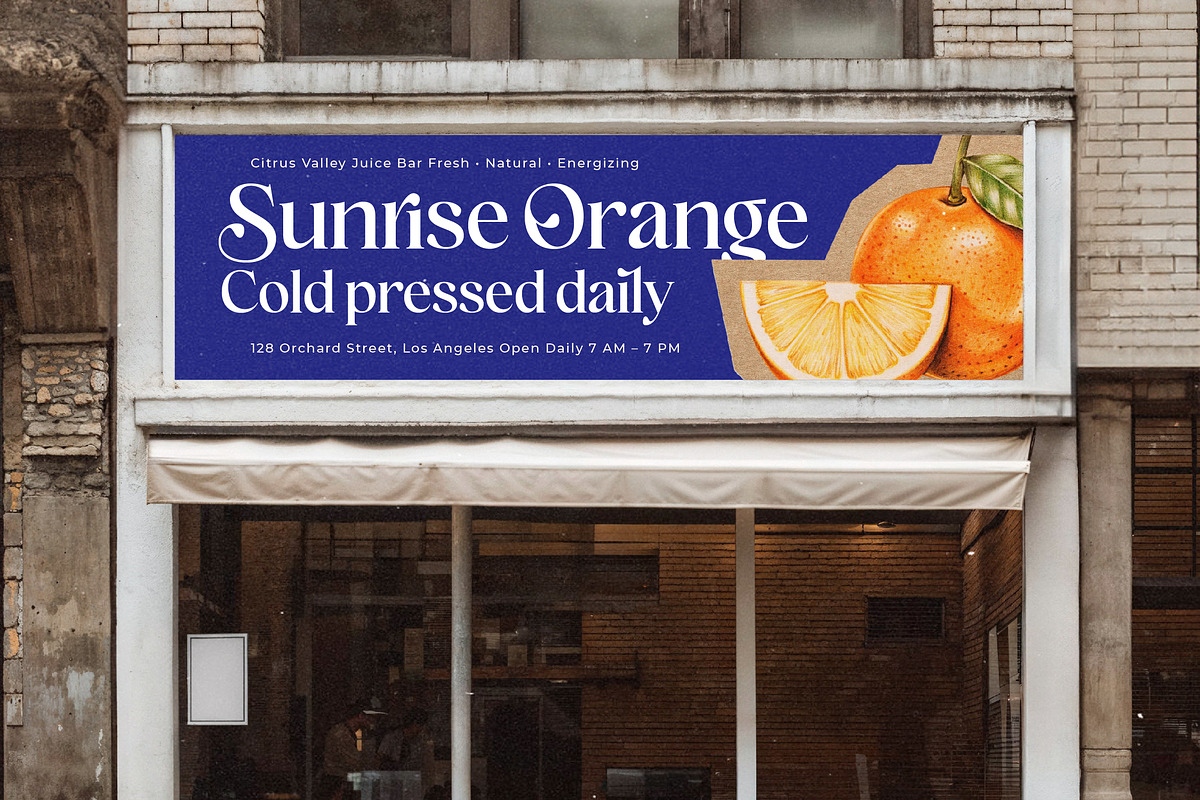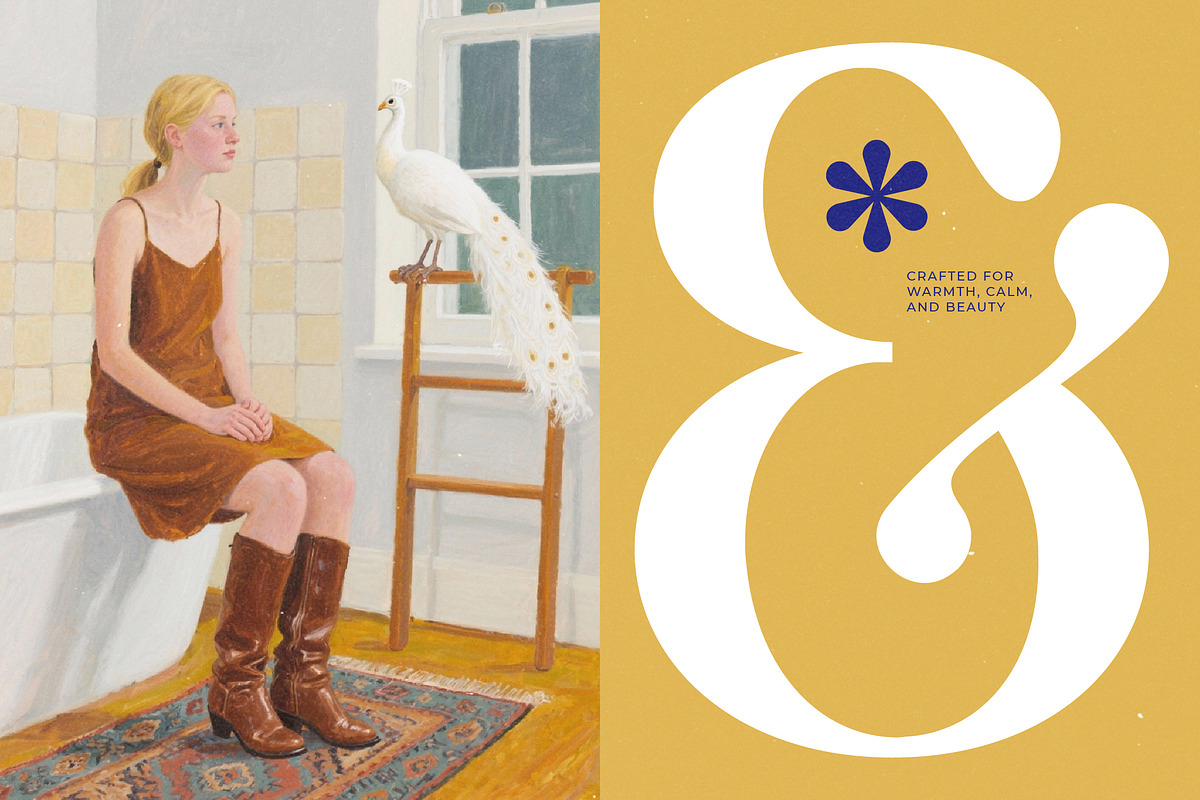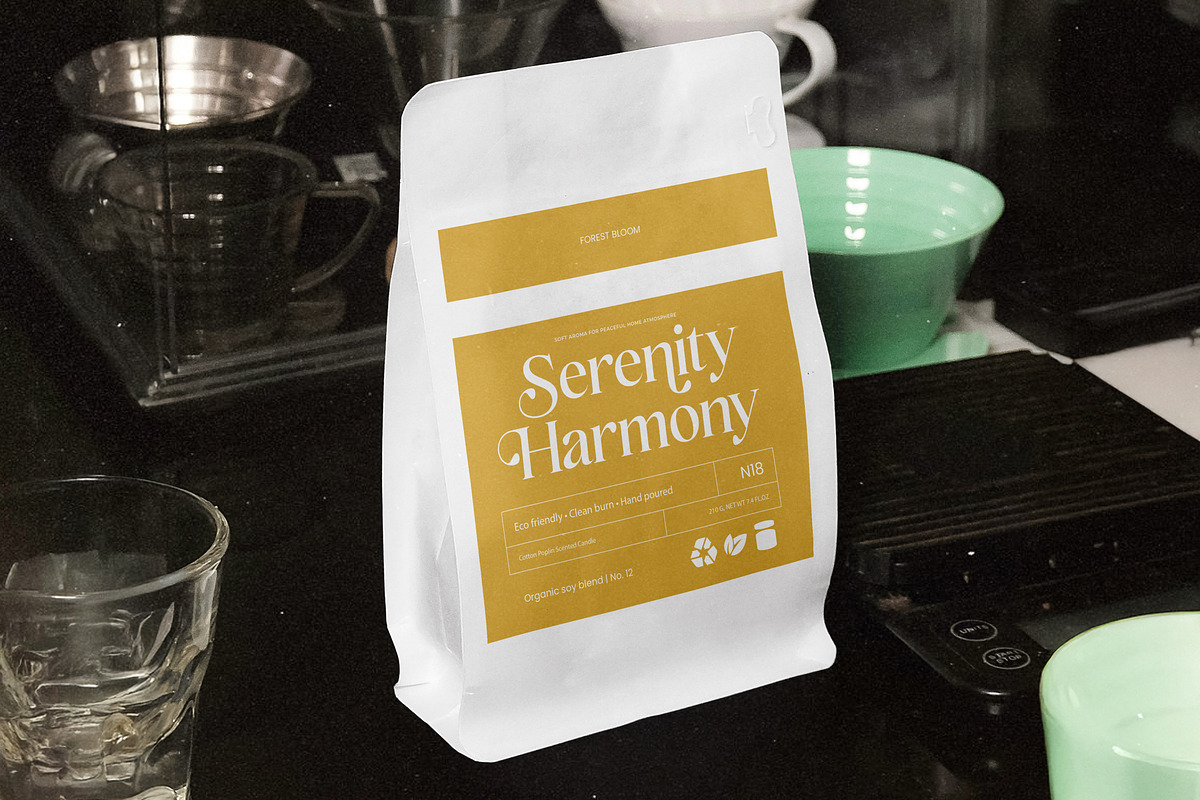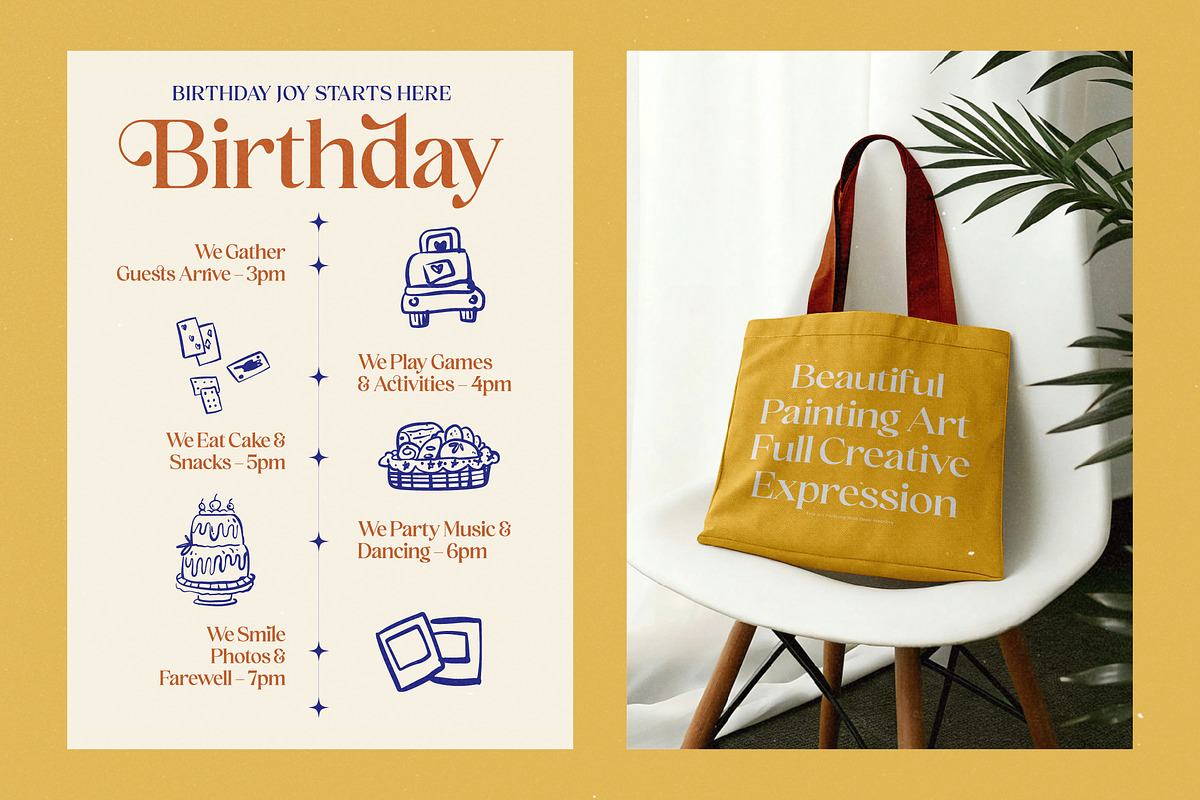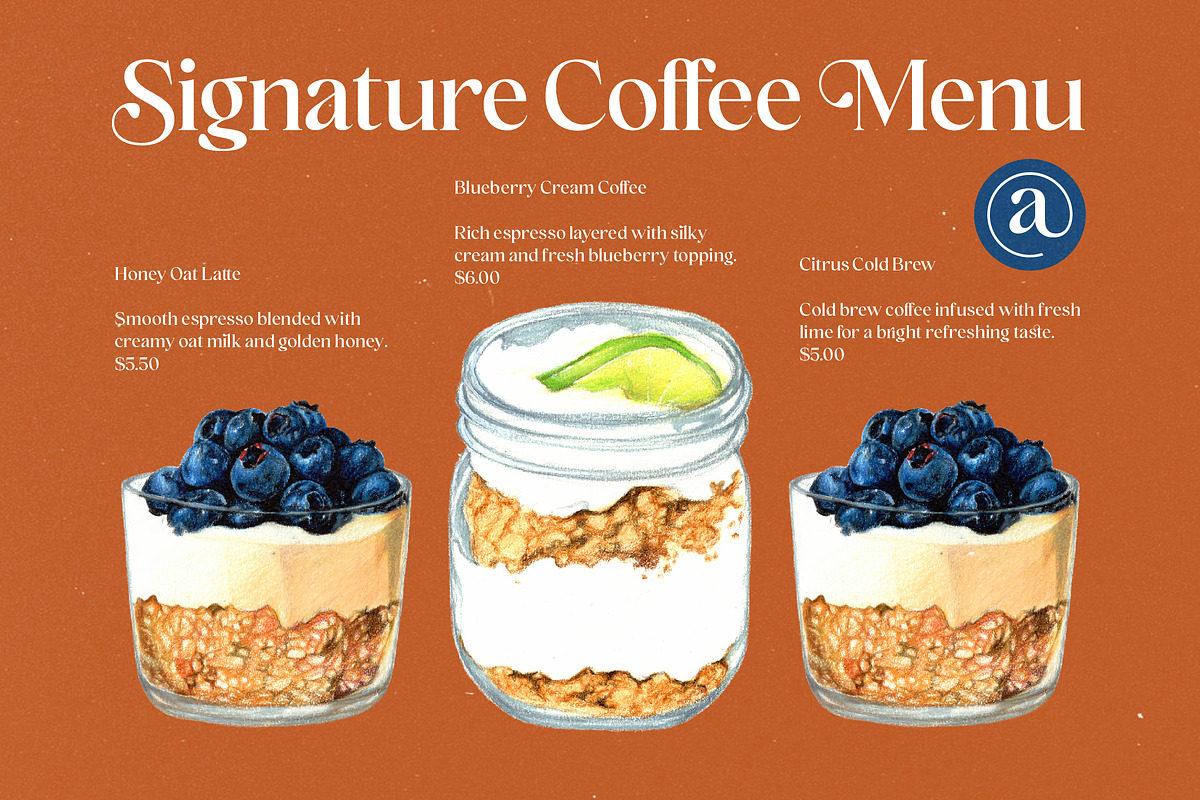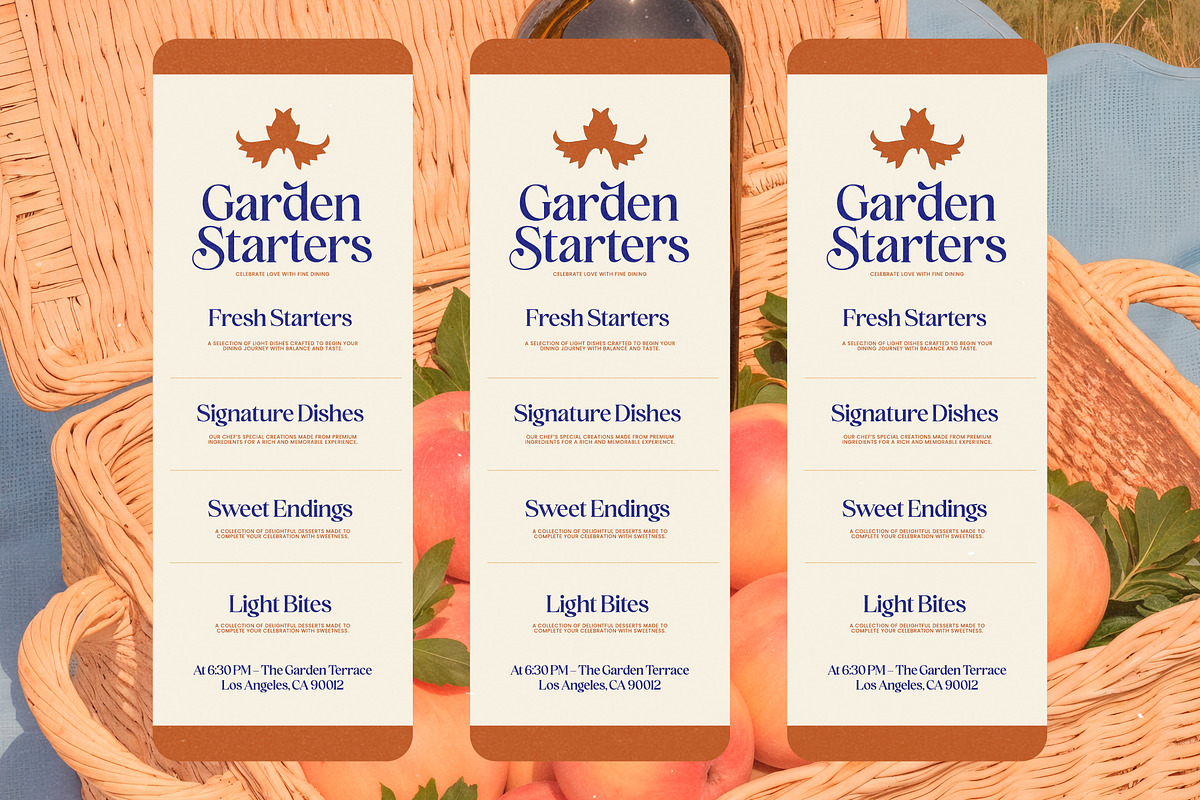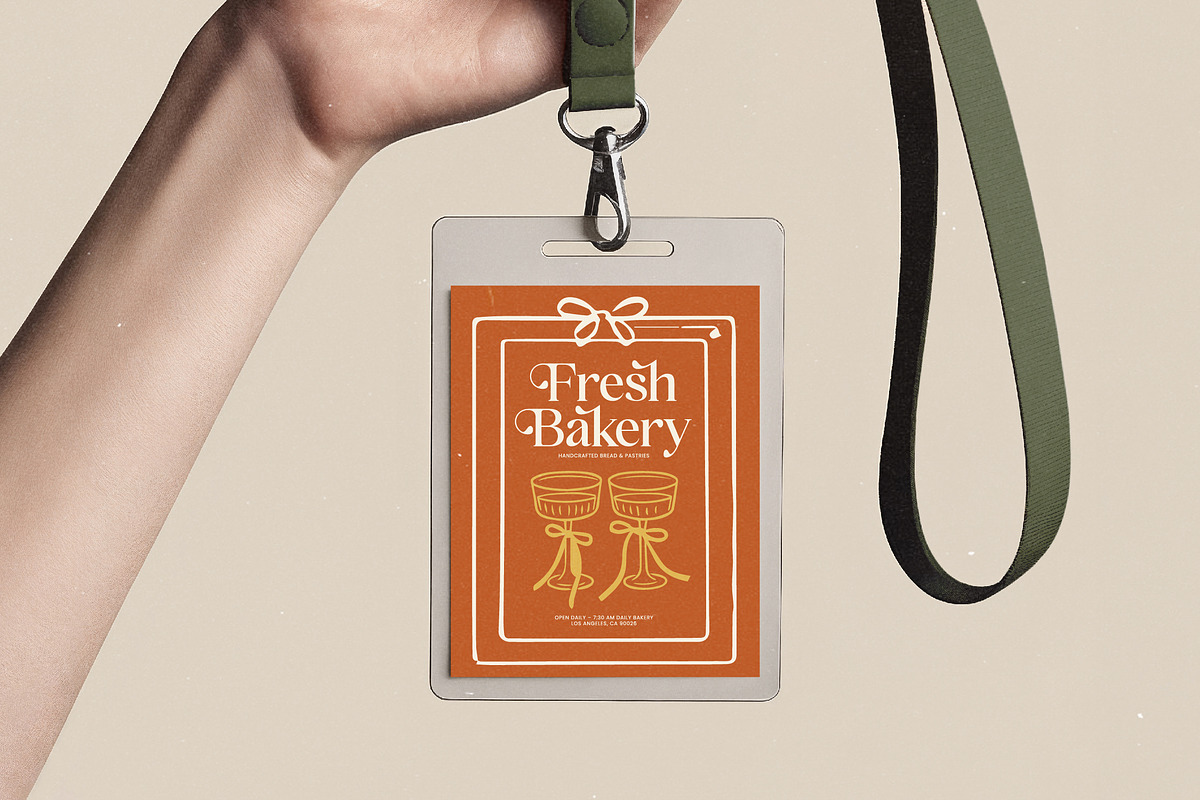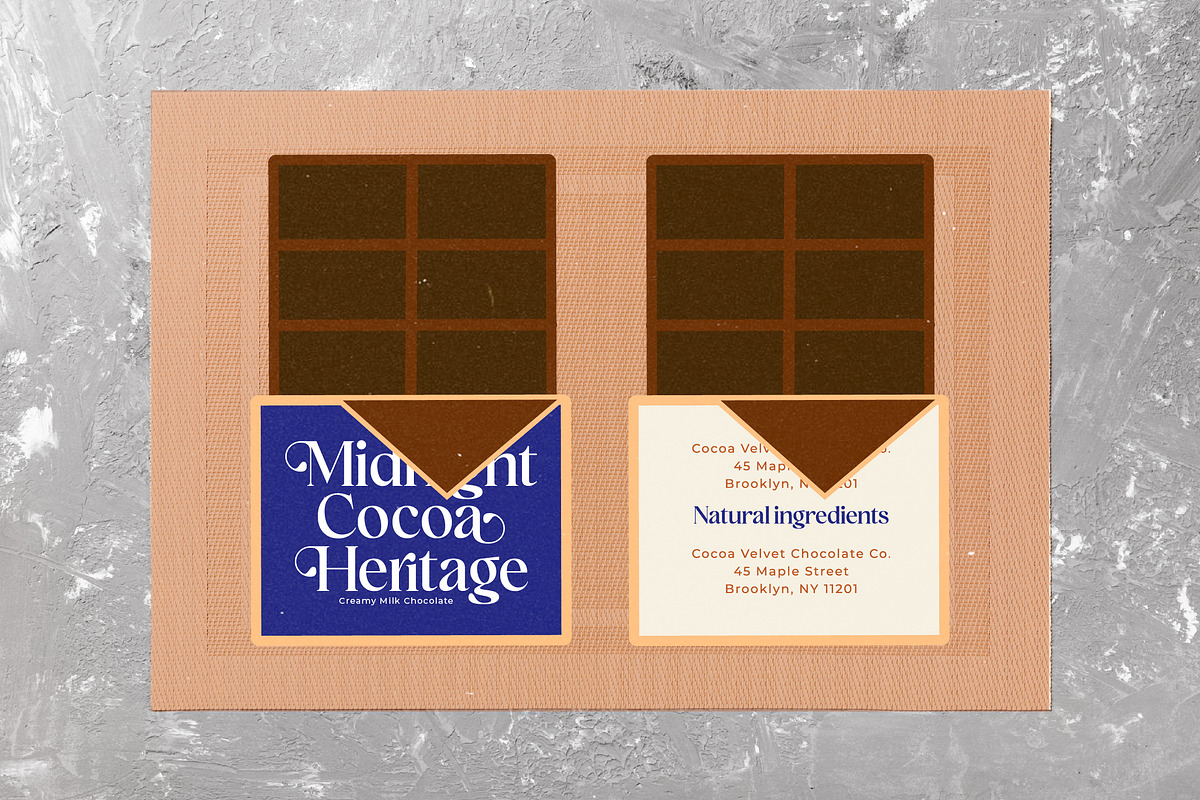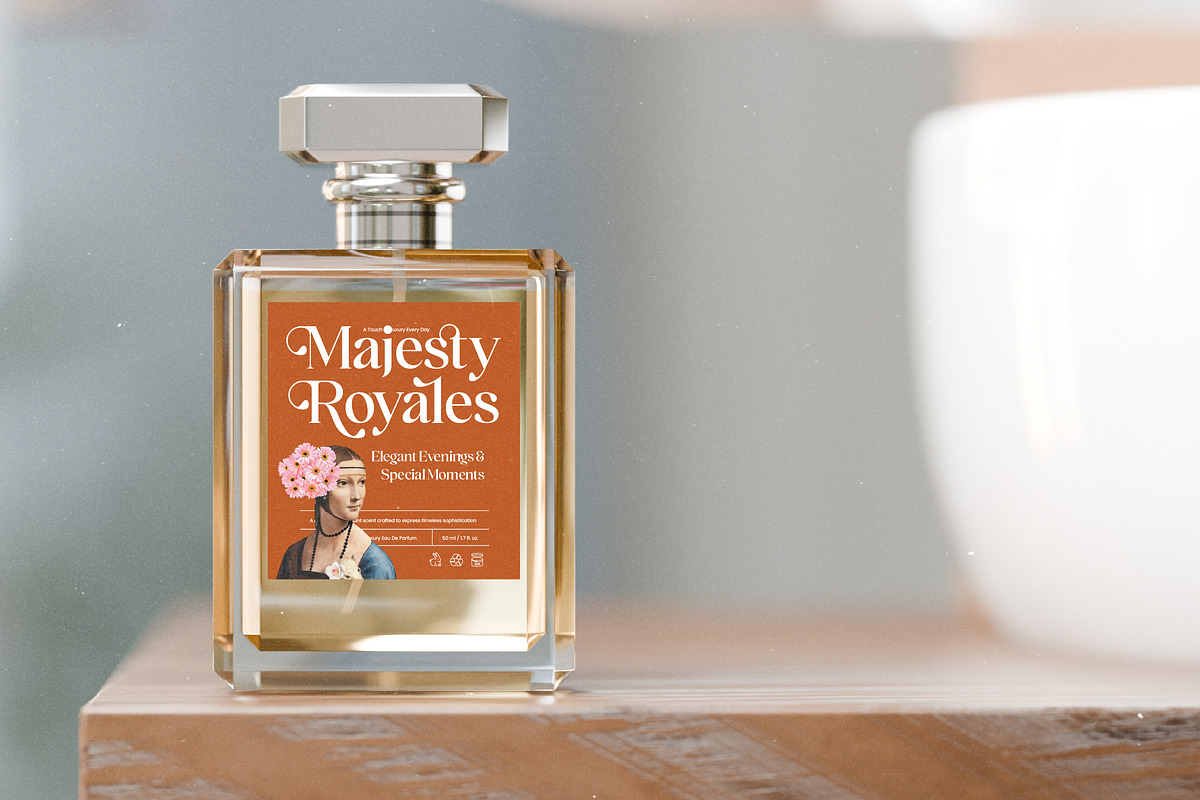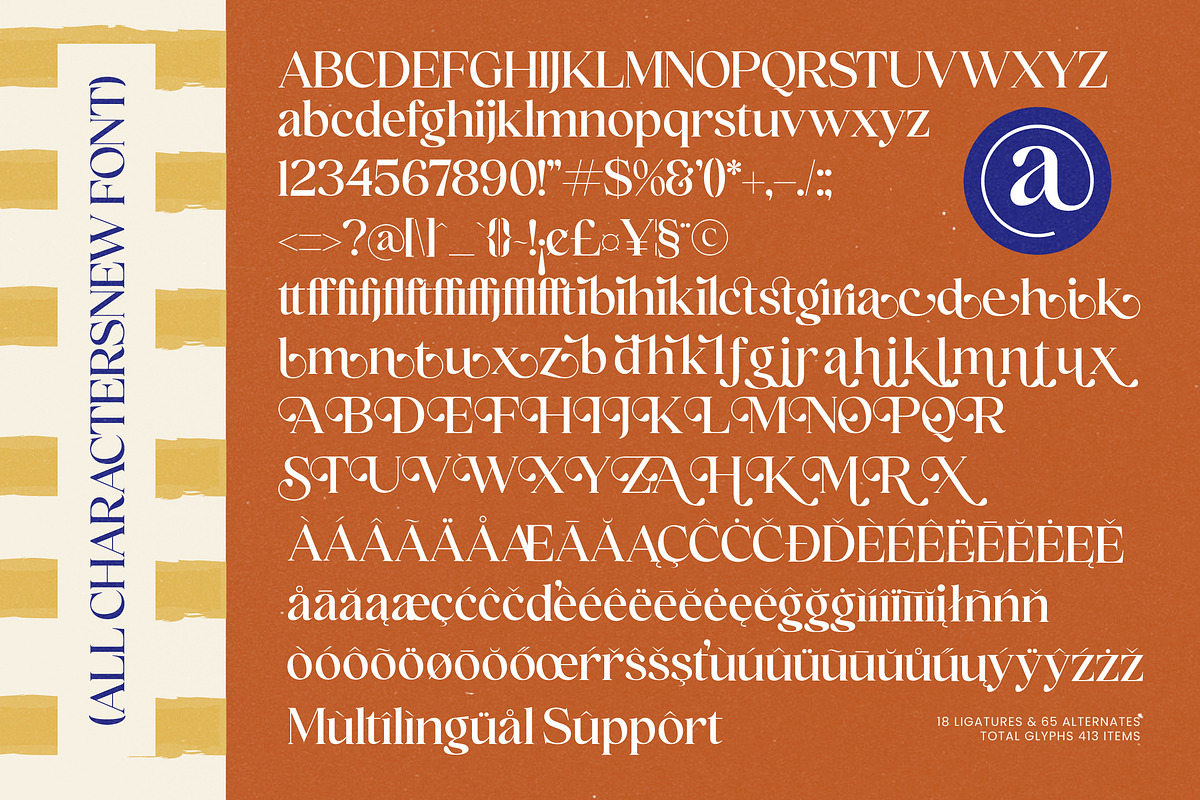
Holiday Sunset Elegant Serif
Holiday Sunset - Elegant Display Serif Font , Capture the essence of a warm Mediterranean breeze and the golden hour glow with the stunning Holiday Sunset. This typeface is designed to bring a sense of refined nostalgia and effortless elegance to every creative canvas.\n\nInspired by vintage travel posters and the leisurely pace of coastal European summers, this font evokes a world of sun-drenched terraces and sparkling seaside dinners. The delicate balance of thick and thin strokes reflects the flickering light of a setting sun against the horizon.\n\nAs a modern serif display choice, it offers a level of luxury typography that is hard to ignore, providing a high-contrast serif look that demands attention. This editorial font was crafted for maximum branding impact, ensuring your message feels both timeless and fashionable.\n\nPerfectly aligned with the current modern serif trend, this typeface fulfills the growing demand for editorial display fonts that feel human and expressive. It champions character-driven typography by offering a unique visual voice that breaks away from standard, sterile layouts.\n\nThis versatile tool is ideal for high-end logo design and comprehensive branding projects where a touch of class is required. From sophisticated editorial layouts and product packaging to romantic wedding stationery and elevated fashion lookbooks, its applications are endless.\n\nEnhance your designs with professional ligatures and creative alternates that provide a custom-lettered feel throughout your text. With beautiful swashes and full multilingual support including international characters, this font is ready for global design challenges.
Numerals
Punctuations (OpenType Standard)
Accents (Multilingual Characters)
Ligatures and Alternative Style Stylistic Set